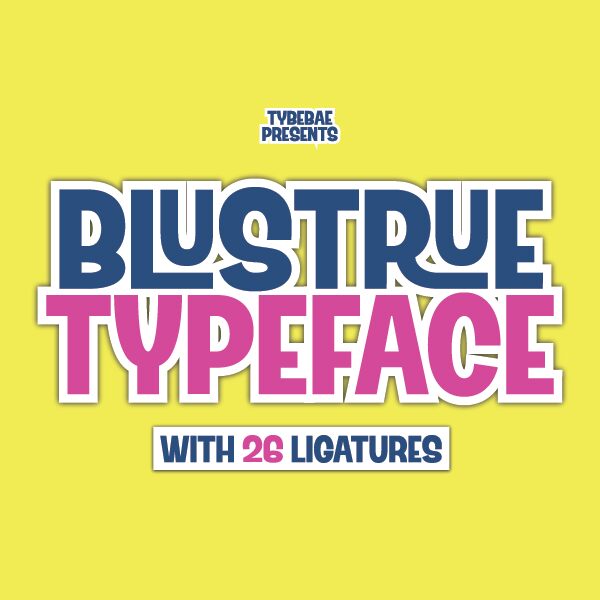
Blustrue font designed by Typebae Foundry is a blocky comic font that strikes a balance between art and purpose. With its inspired, geometric shapes, it makes up vibrant sentences and headings with impact. All of its letters are modern, youthful, and dynamic, a combination that can only produce outstanding results no matter where it’s used. Enjoy a new vibrant and lively addition to your graphic projects with this free font by Typebae.
Although generally thought of as a signage style or book cover font, this unique typeface goes beyond both, allowing for exploration in branding and packaging designs, business card designs, social media posts, ads, etc. Achieve the appearance you want for your magazine or newspaper covers, stationery designs, children’s cartoon series posters, and more creative yet professional work.